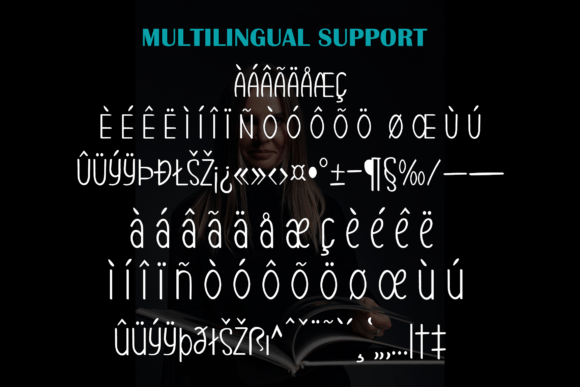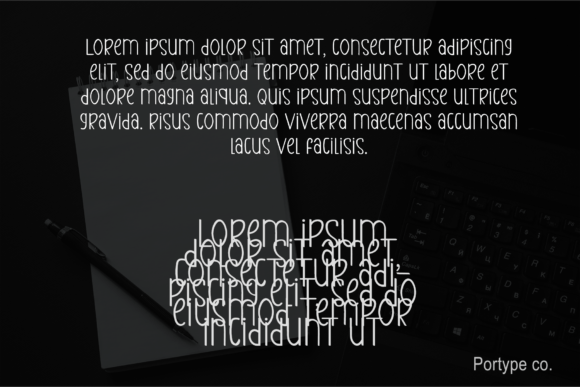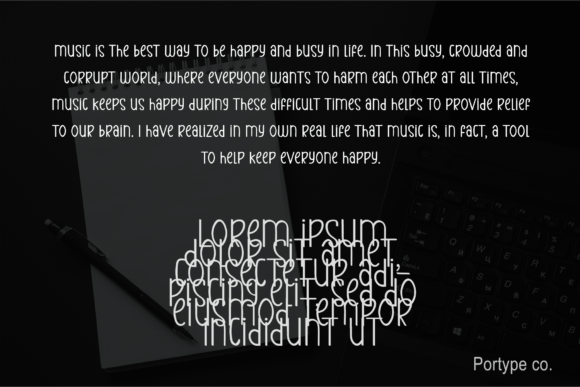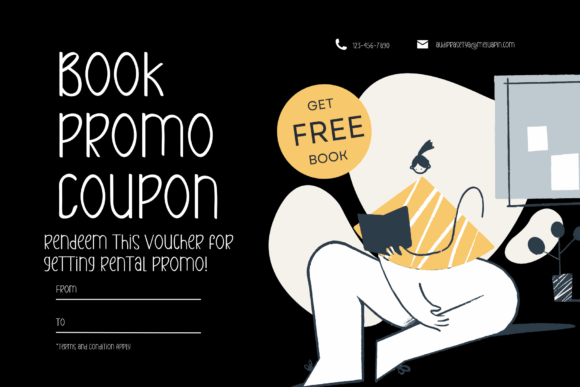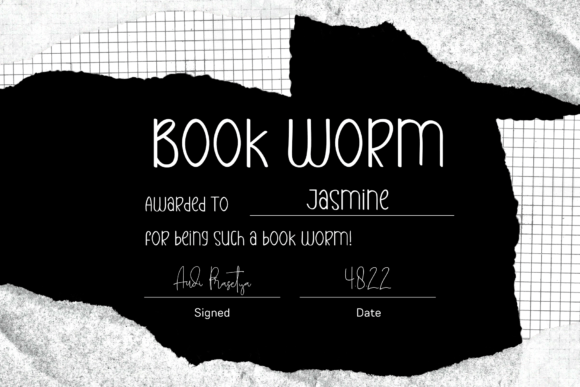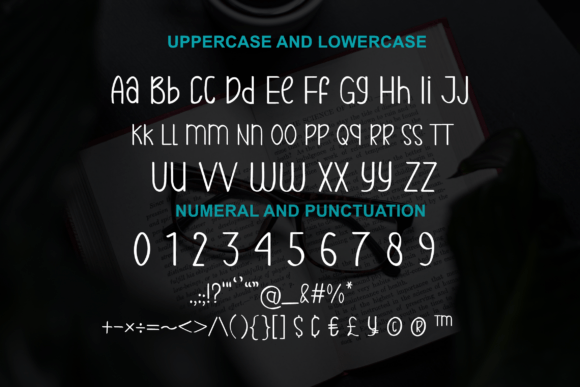
Baby Bali Font: A Playful and Casual Handwritten Font for Designers and Crafters
Are you looking for a font that can add a personal touch to your designs? Look no further than the Baby Bali Font, a beautiful handwritten font that is perfect for a variety of design needs. Inspired by notes, Baby Bali has a casual and playful look that is sure to make your designs stand out.
What is Baby Bali Font?
Baby Bali Font is a handwritten font that is designed to mimic the look of handwritten notes. It has a casual and playful feel, making it perfect for designs that require a personal touch. The font is inspired by the imperfections of handwritten notes, giving it a unique and charming look.
Characteristics of Baby Bali Font
The Baby Bali Font has several characteristics that make it a great choice for designers and crafters. Some of its key features include:
- Handwritten look: The font has a natural, handwritten look that is perfect for designs that require a personal touch.
- Casual and playful: The font has a casual and playful feel, making it perfect for designs that require a lighthearted touch.
- Imperfect and charming: The font is inspired by the imperfections of handwritten notes, giving it a unique and charming look.
Uses of Baby Bali Font
The Baby Bali Font is a versatile font that can be used for a variety of design needs. Some of the ways you can use this font include:
- Handwritten notes: The font is perfect for creating handwritten notes that look like they were written by hand.
- Sweet greeting cards: The font is great for creating sweet and playful greeting cards for special occasions.
- Beautiful quotes: The font is perfect for creating beautiful quotes that are visually appealing.
- Stand-out branding: The font can be used to create stand-out branding that is unique and memorable.
- Urban design: The font can be used for urban design projects, such as posters, flyers, and brochures.
- Modern advertising design: The font can be used for modern advertising design projects, such as ads, banners, and social media graphics.
- Book/Cover Title: The font can be used to create eye-catching book covers and titles.
- Special events: The font can be used to create designs for special events, such as weddings, birthdays, and anniversaries.
- Adventures: The font can be used to create designs for adventure-related projects, such as travel brochures and outdoor gear ads.
- Headlines: The font can be used to create attention-grabbing headlines for articles, blogs, and websites.
- Clothing: The font can be used to create designs for clothing, such as t-shirts, hoodies, and hats.
Why Choose Baby Bali Font?
There are many reasons why you should choose Baby Bali Font for your design needs. Some of the reasons include:
- Unique and charming look: The font has a unique and charming look that is sure to make your designs stand out.
- Versatile: The font is versatile and can be used for a variety of design needs.
- Easy to read: The font is easy to read, making it perfect for designs that require a lot of text.
- Customizable: The font can be customized to fit your design needs.
In conclusion, Baby Bali Font is a beautiful handwritten font that is perfect for designers and crafters. Its casual and playful look makes it perfect for a variety of design needs, from handwritten notes to stand-out branding. With its unique and charming look, versatility, and ease of use, Baby Bali Font is a great choice for anyone looking to add a personal touch to their designs.